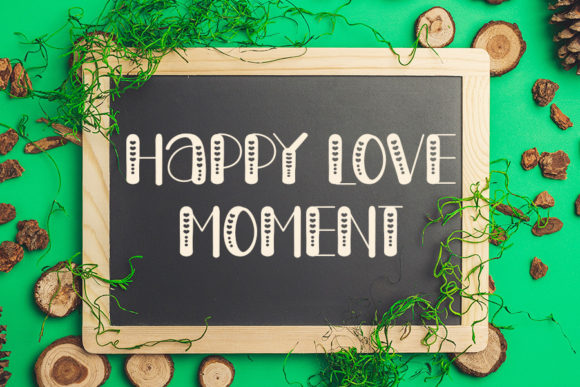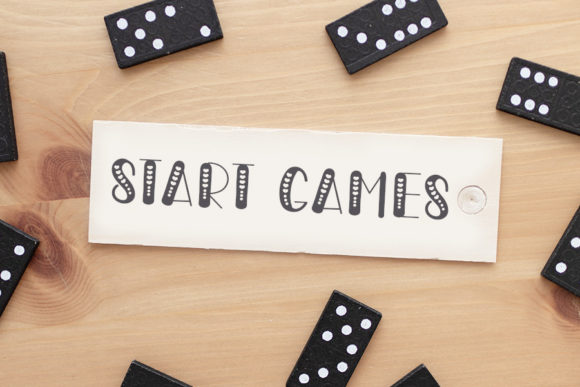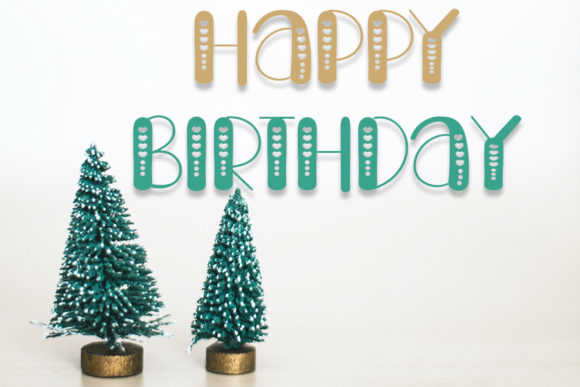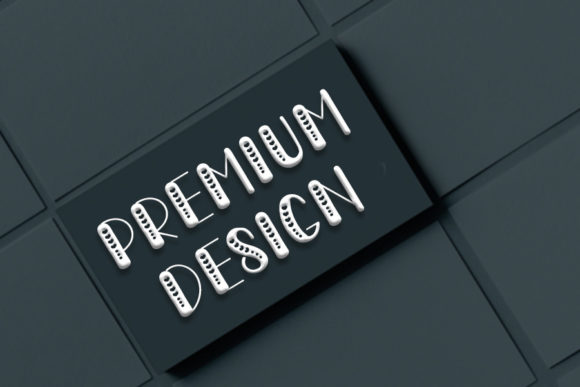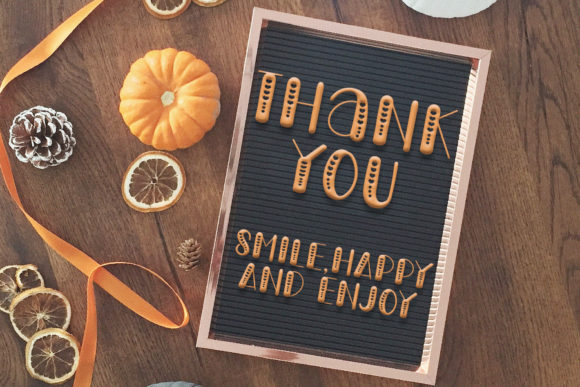
Introduction to Love at Kids Font Font
Fonts play a crucial role in design, and the Love at Kids Font font is a typeface that brings both character and versatility to any project. Whether you’re working on a branding project, a website, or a print design, the Love at Kids Font font offers a unique style that can elevate your work.
Love At Kids is a delicate and elegant decorative font with a love theme.
Its distinct and well rounded letters make this font a masterpiece Fall in love with its incredibly versatile style and use it to create spectacular designs.
Key Features of Love at Kids Font Font
Why Choose Love at Kids Font Font?
The Love at Kids Font font is more than just a typeface – it’s a design tool that helps you communicate your message with style and clarity. Its unique character set and versatile design make it suitable for a wide range of applications, from elegant invitations to bold headlines.
With its carefully crafted letterforms and balanced proportions, the Love at Kids Font font ensures readability and visual appeal across all mediums.
What makes Love at Kids Font font special?
The Love at Kids Font font stands out with its unique design, exceptional readability, and versatility across various design applications.